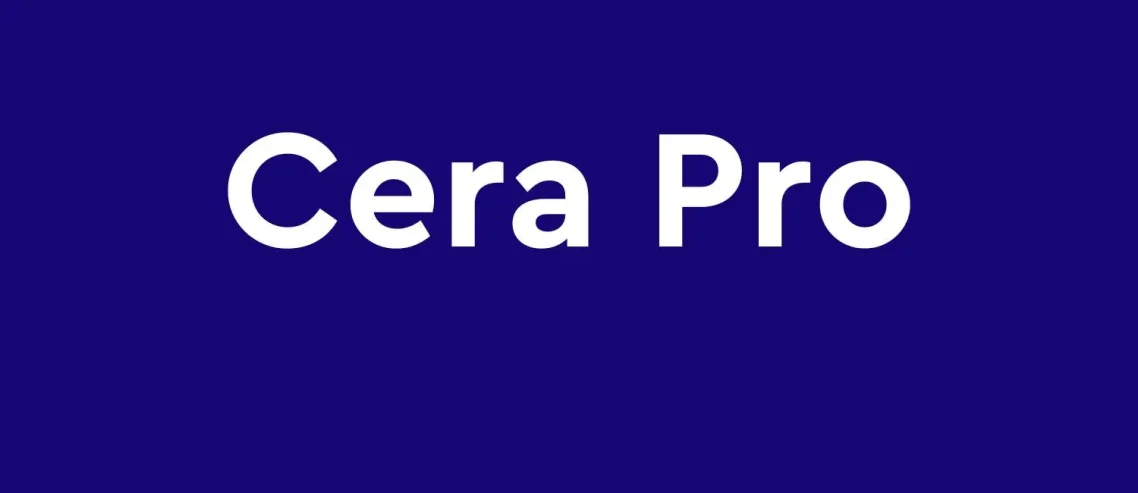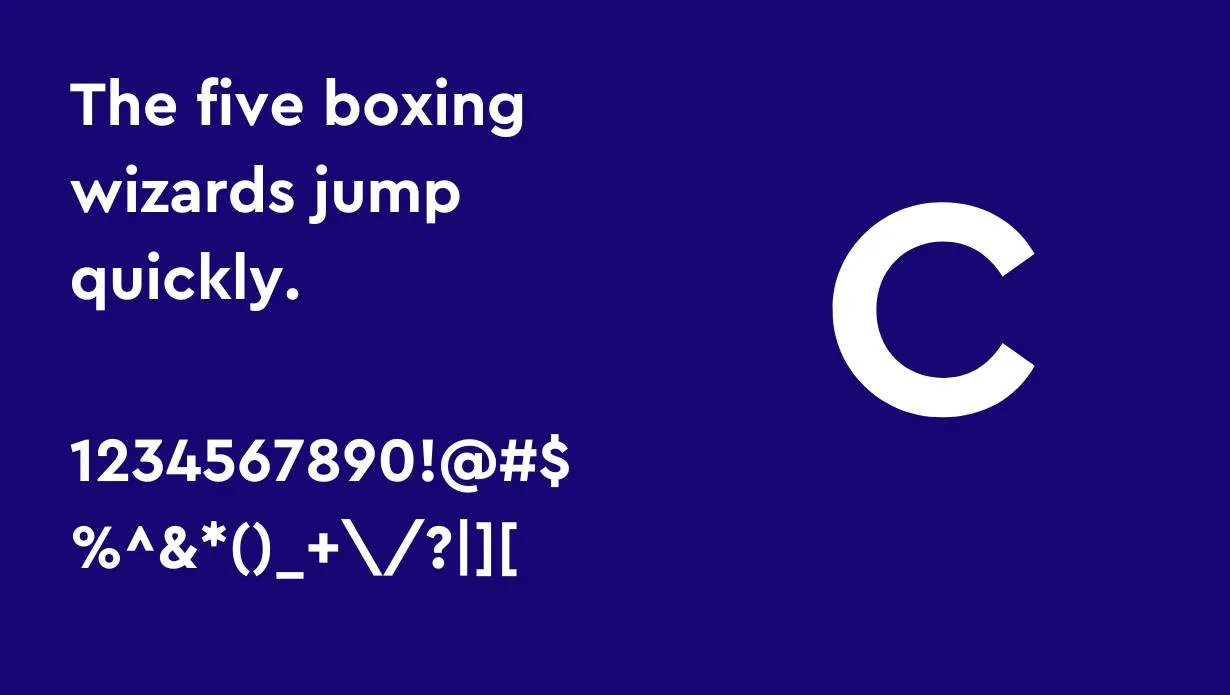
Cera Pro is a modern and versatile sans-serif font known for its clean and geometric design. With its balanced proportions and clear letterforms, this font is suitable for a wide range of design applications. Cera Pro is a sans-serif typeface designed by Jakob Runge and released by TypeMates.
Cera Pro is often used in branding, websites, or editorial design where a contemporary and professional look is desired. Its readability and adaptability make Cera Pro a practical choice for conveying information clearly and straightforwardly.
Designer | Jakob Runge |